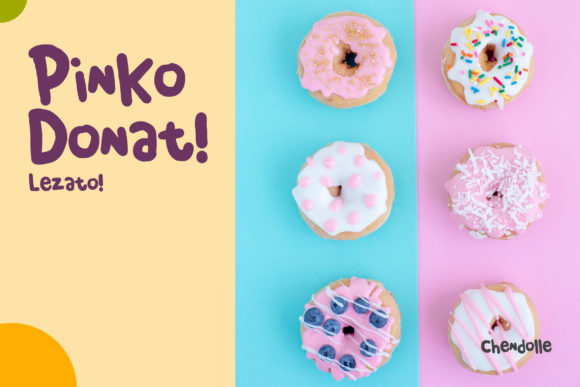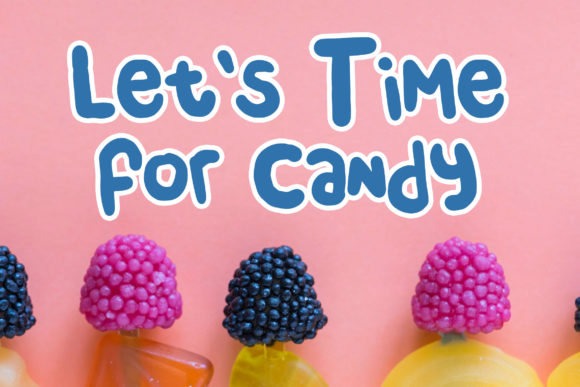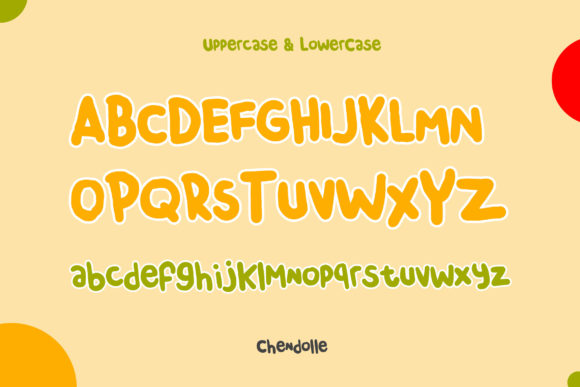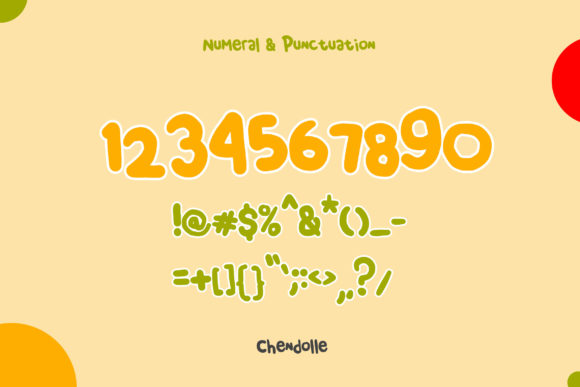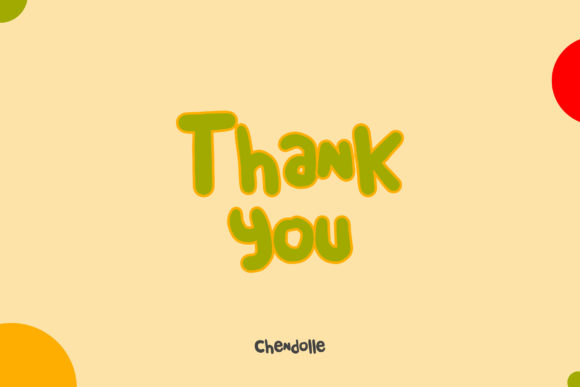
Introducing Chendolle Font: The Playful and Quirky Display Font for School Projects and Beyond!
Are you tired of using the same old boring fonts for your school projects or crafty endeavors? Look no further! Chendolle Font is here to add a dash of fun and whimsy to your designs. This delightful display font is perfect for students, teachers, and crafters who want to add a playful touch to their work.
What Makes Chendolle Font So Special?
Chendolle Font is a fun and quirky display font that’s sure to capture the attention of your audience. Its childish charm makes it an ideal choice for school projects, crafts, and other creative endeavors. Here are some reasons why Chendolle Font stands out:
• Unique and Playful Design: Chendolle Font features a one-of-a-kind design that’s both fun and quirky. Its playful curves and lines make it perfect for adding a touch of whimsy to your designs.
• Perfect for School Projects: Whether you’re working on a school project, creating a craft, or designing a poster, Chendolle Font is the perfect choice. Its childish charm makes it ideal for projects aimed at a younger audience.
• Easy to Read: Despite its playful design, Chendolle Font is easy to read, making it perfect for headings, titles, and other display text.
• Versatile: Chendolle Font can be used for a wide range of projects, from school assignments to crafty endeavors, and even personal designs.
Why Choose Chendolle Font for Your School Projects?
When it comes to school projects, you want a font that’s engaging, fun, and easy to read. Chendolle Font ticks all these boxes and more. Here are some reasons why you should choose Chendolle Font for your school projects:
• Adds a Touch of Personality: Chendolle Font adds a dash of personality to your school projects, making them stand out from the crowd.
• Perfect for Kids’ Projects: Chendolle Font is ideal for kids’ projects, as it’s fun, playful, and engaging.
Tips and Tricks for Using Chendolle Font
Here are some tips and tricks for using Chendolle Font in your designs:
• Use it for Headings and Titles: Chendolle Font is perfect for headings and titles, as it’s attention-grabbing and easy to read.
• Pair it with Other Fonts: Pair Chendolle Font with other fonts to create a unique and interesting design.
• Experiment with Colors: Experiment with different colors to add a pop of color to your design.
In conclusion, Chendolle Font is a fun and quirky display font that’s perfect for school projects, crafts, and other creative endeavors. Its unique and playful design makes it ideal for adding a touch of whimsy to your designs. With its ease of use, versatility, and playful charm, Chendolle Font is sure to become a favorite among designers, crafters, and students alike.